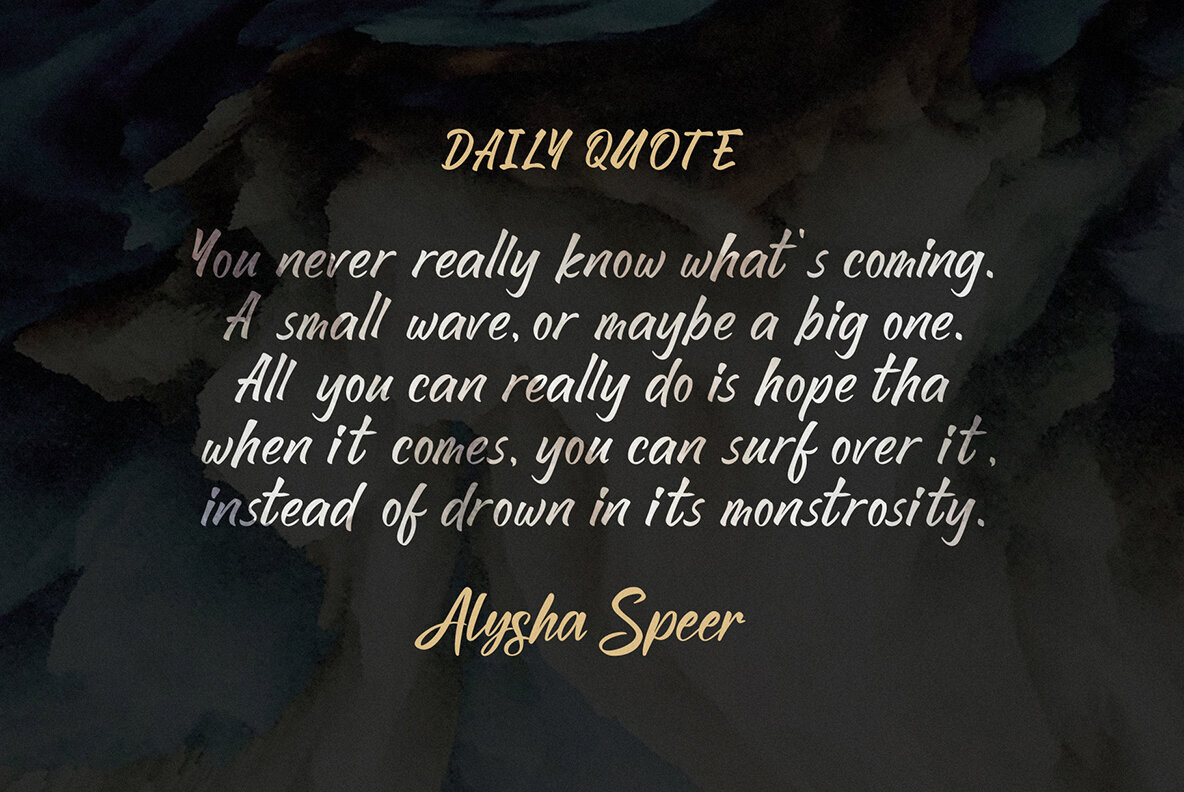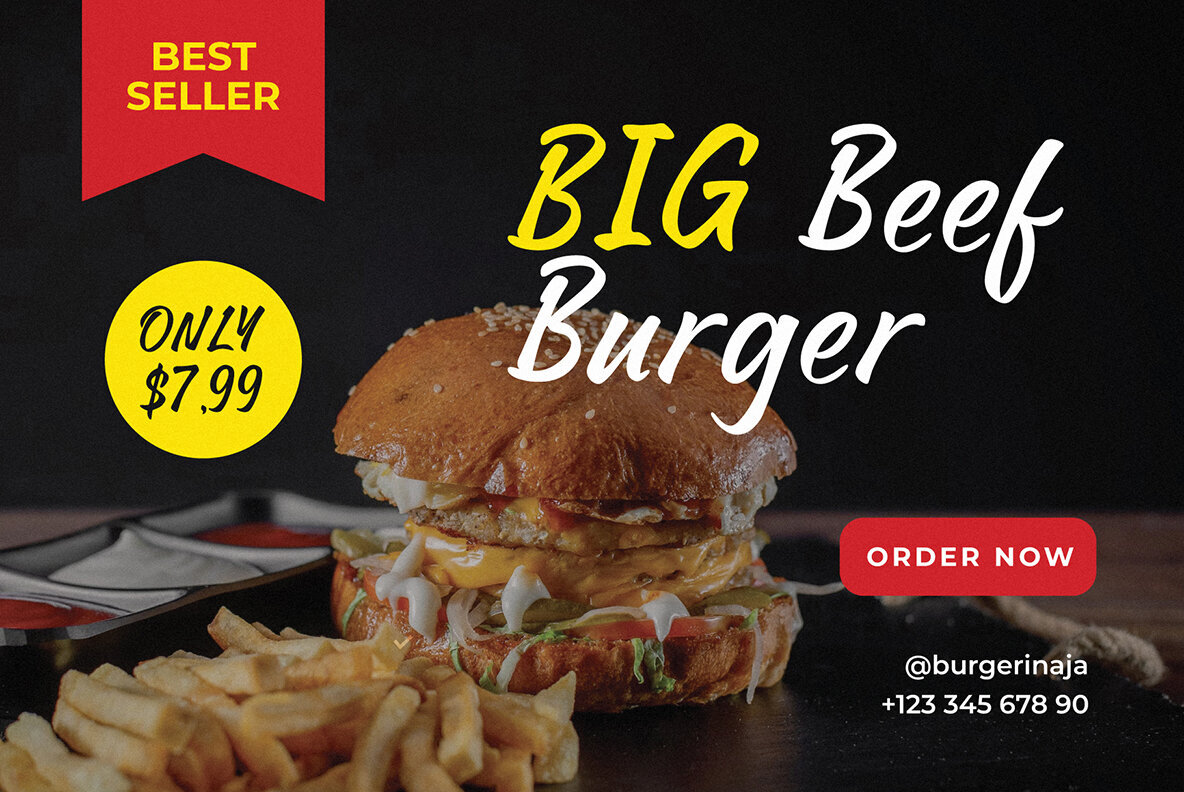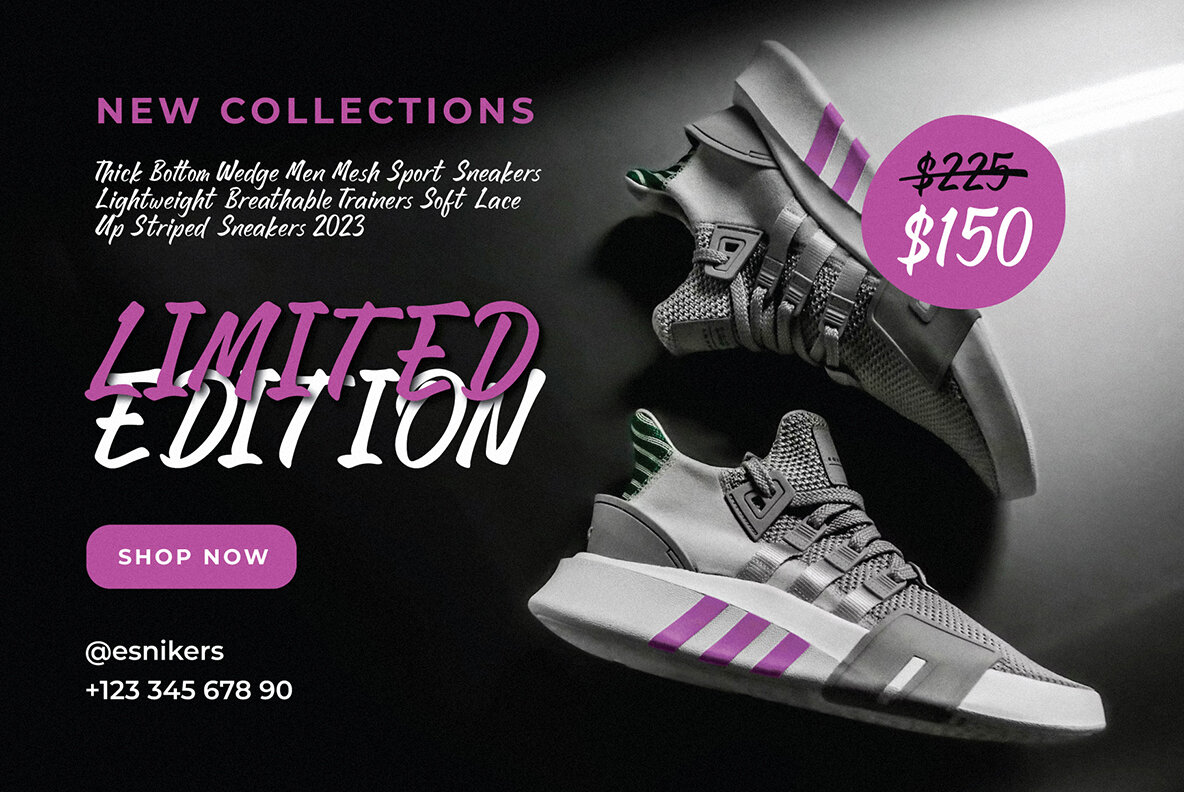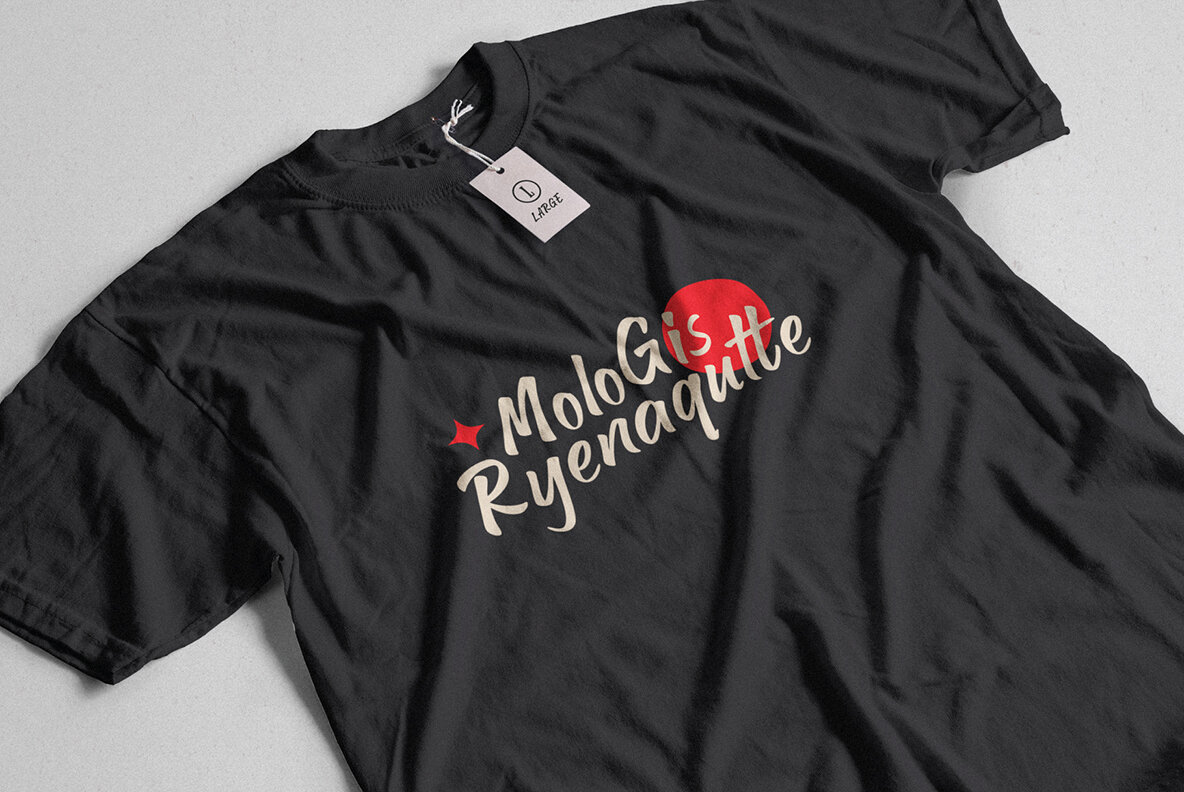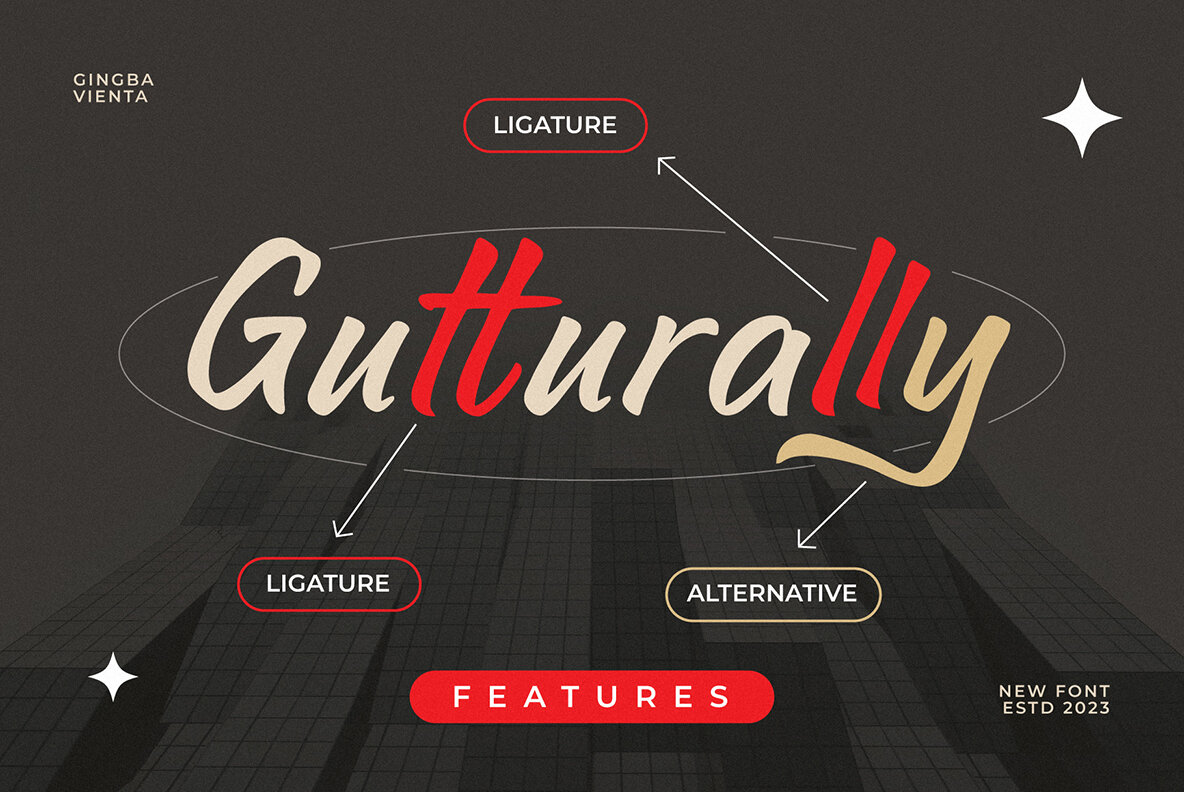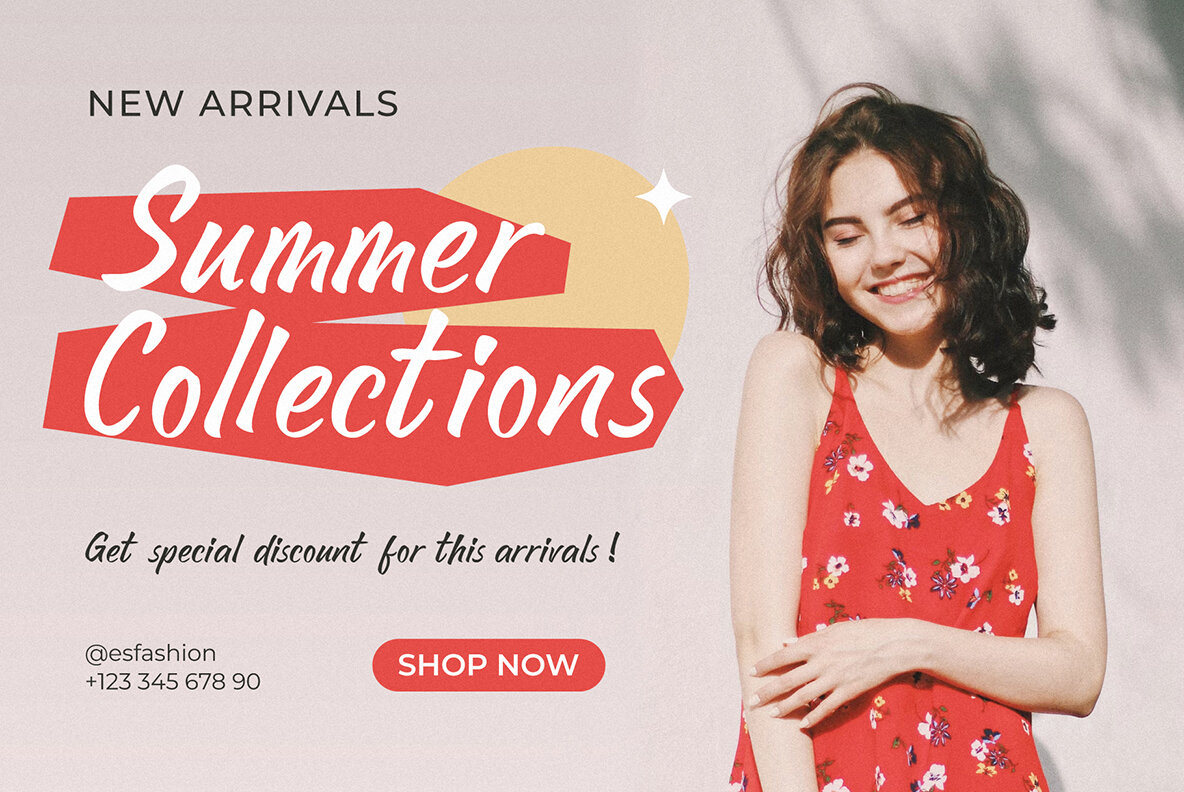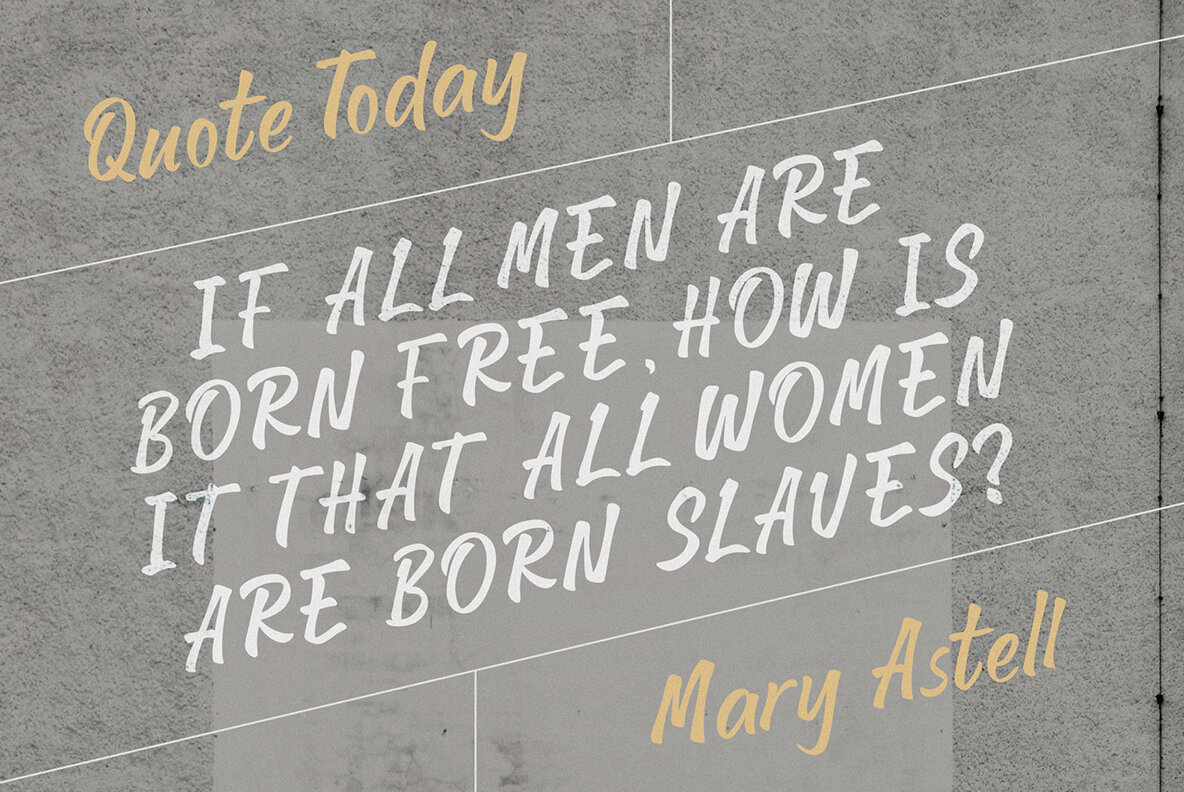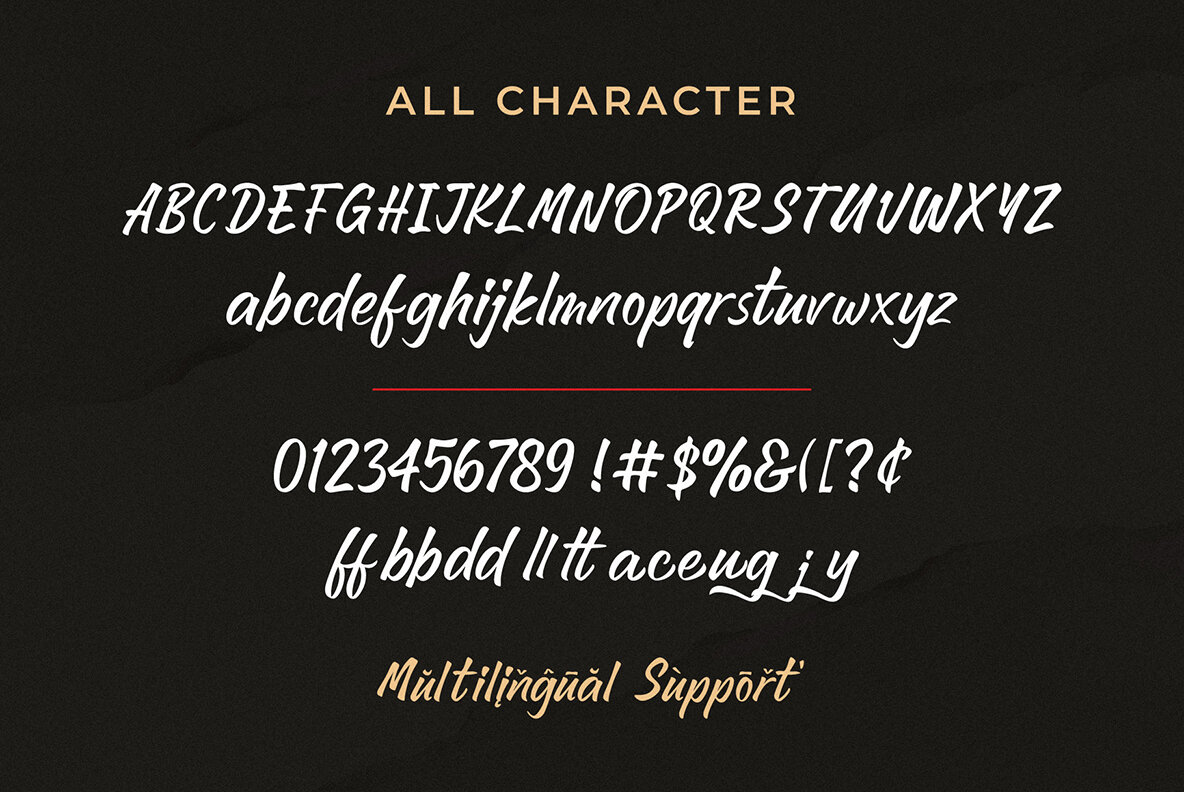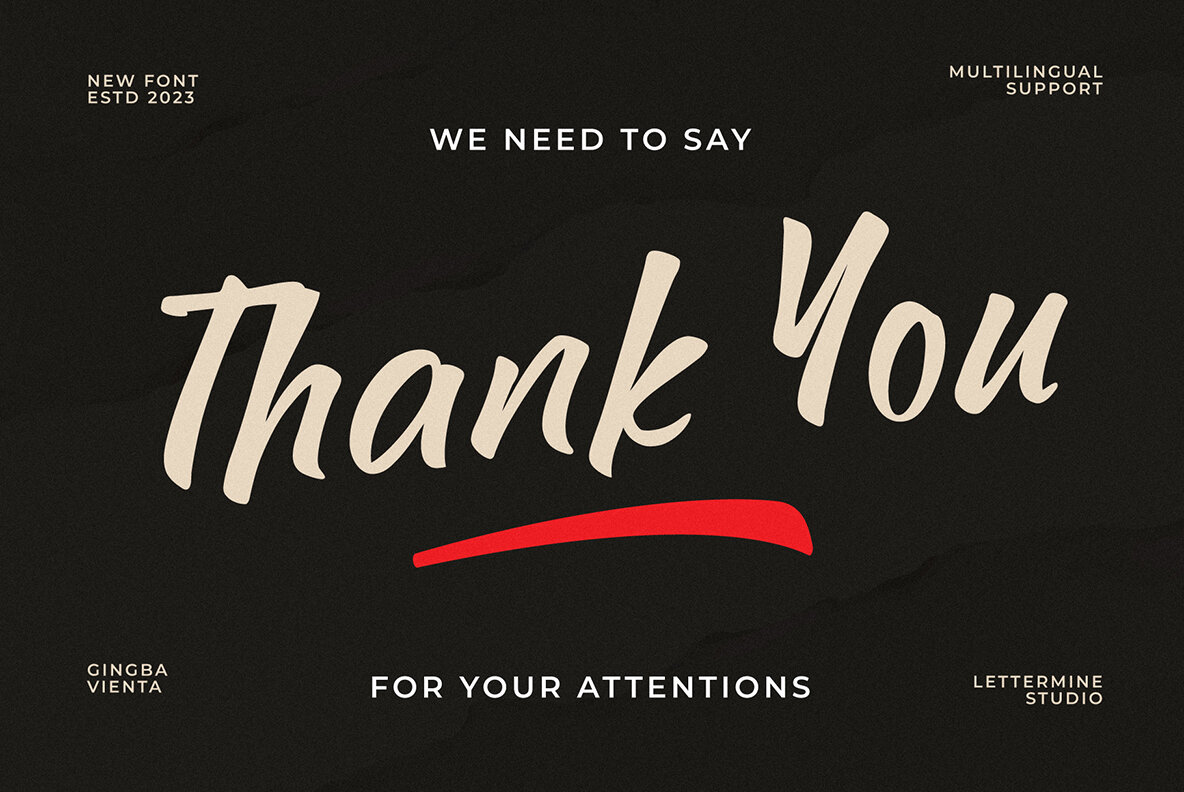
Gingba Vienta Font
Gingba Vienta Regular
Gingba Vienta is a captivating handwritten serif font that adds a touch of elegance and modernity to any project. Whether designed for fashion, the food industry, or special occasions like weddings, birthdays, or engagements, this font becomes the perfect companion. With its stylish and contemporary handwritten brush font style, Gingba Vienta effortlessly captures attention and elevates any design. Enhance your designs with Gingba Vienta's professional touch. Acquire this font now to introduce modern beauty to your most cherished projects.Gingba Vienta: A Handwritten Serif with Modern Elegance